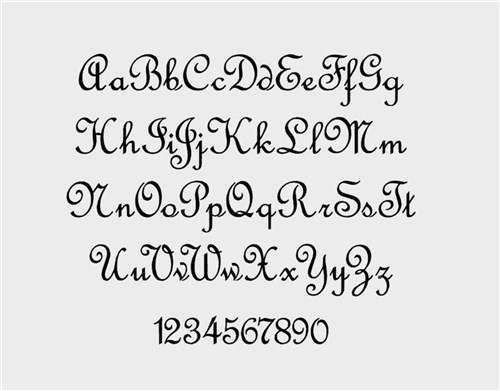
Artsy Knots is happy to present French script Embroidery Font - Elegant Handwriting Style - PES, DST & 6 formats machine embroidery font which has Flowing handwriting style machine embroidery font suitable for decorating table linens and personal accessories. Available in PES, DST & 6 additional formats. included. If you would like to view more embroidery fonts and alphabets please search our embroidery fonts page.
French script Embroidery Font - Elegant Handwriting Style - PES, DST & 6 formats